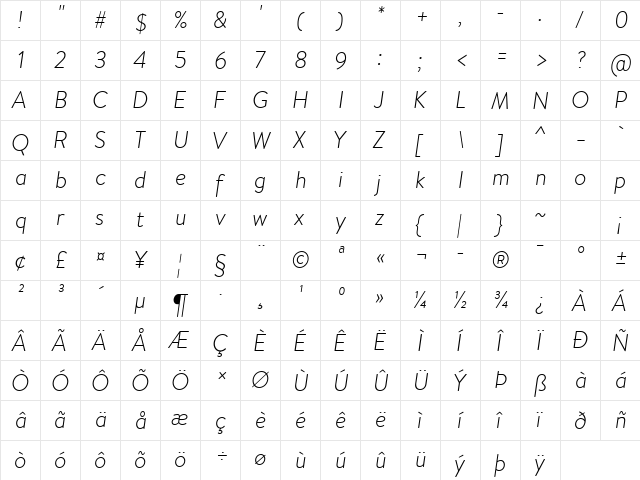
Brandon Text Light Italic Font Preview
| Foundry | Hannes von Doehren |
| Designer | Hannes von Doehren |
Design Context for Brandon Text Light Typeface
Brandon Text Light is a composed and adaptable typeface that performs quietly and consistently across a wide range of design contexts. The dynamic lean of this cut emphasises speed and emphasis in any layout. Its slender proportions lend an understated elegance to any composition.
Pro Tip: Try Brandon Text Light for annotation and caption copy alongside an upright companion — the contrast in angle creates a dynamic but ordered typographic system.